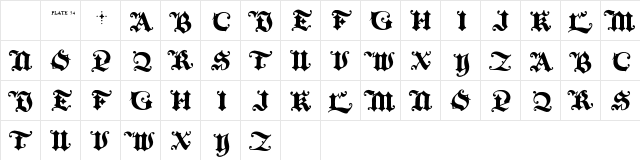
Complete Gong Xi Fa Cai PERSONAL USE ONL Regular glyph index. Displaying only characters natively supported by Gong Xi Fa Cai PERSONAL USE ONL Regular font.
Gong Xi Fa Cai PERSONAL USE ONL is a composed and adaptable typeface that performs quietly and consistently across a wide range of design contexts.